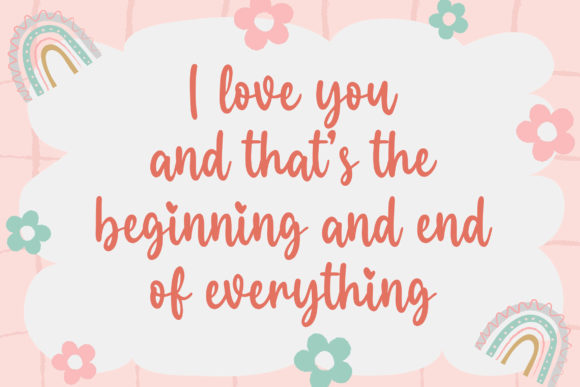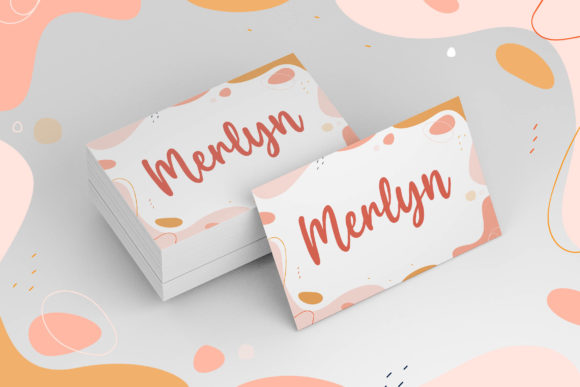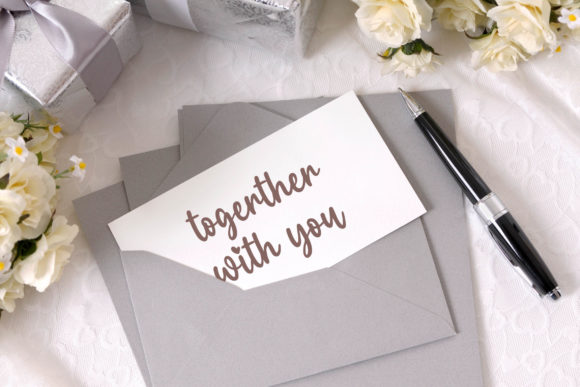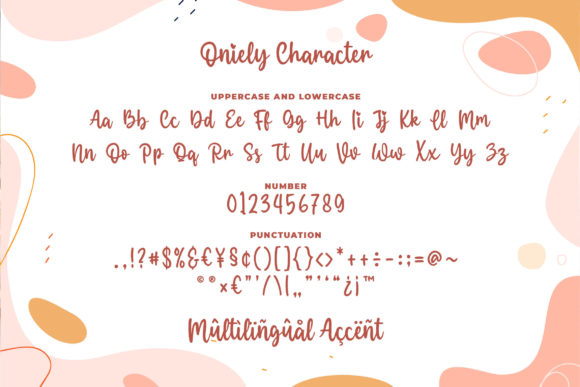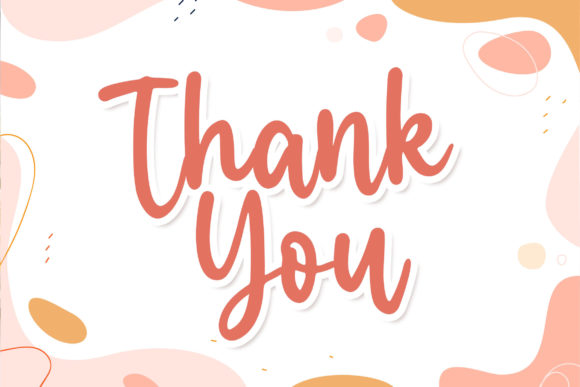
Introduction to Oniely Font
Oniely is an elegant and dainty handwritten font that features sweet and delicate swashes.
This original look will appeal to a wide range of crafty ideas, from letterheads and titles, to stationery .
Key Features of Oniely Font